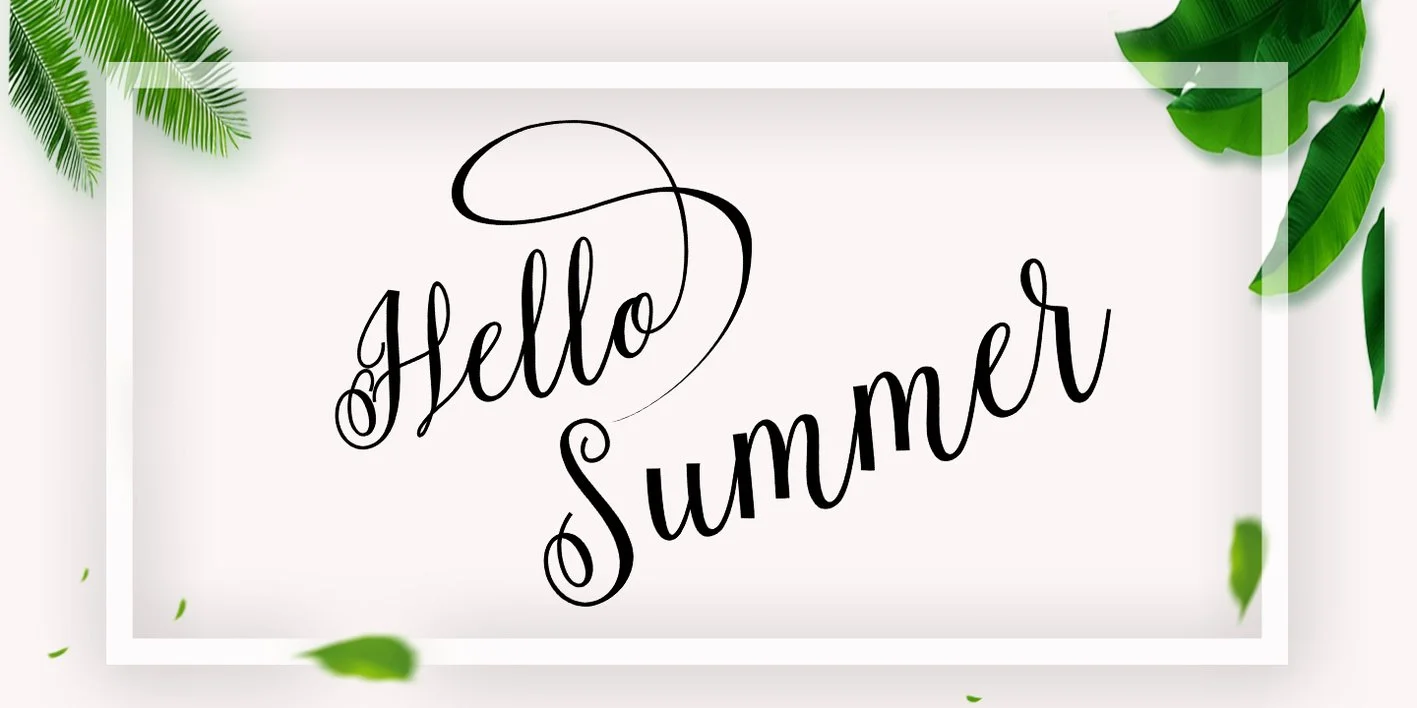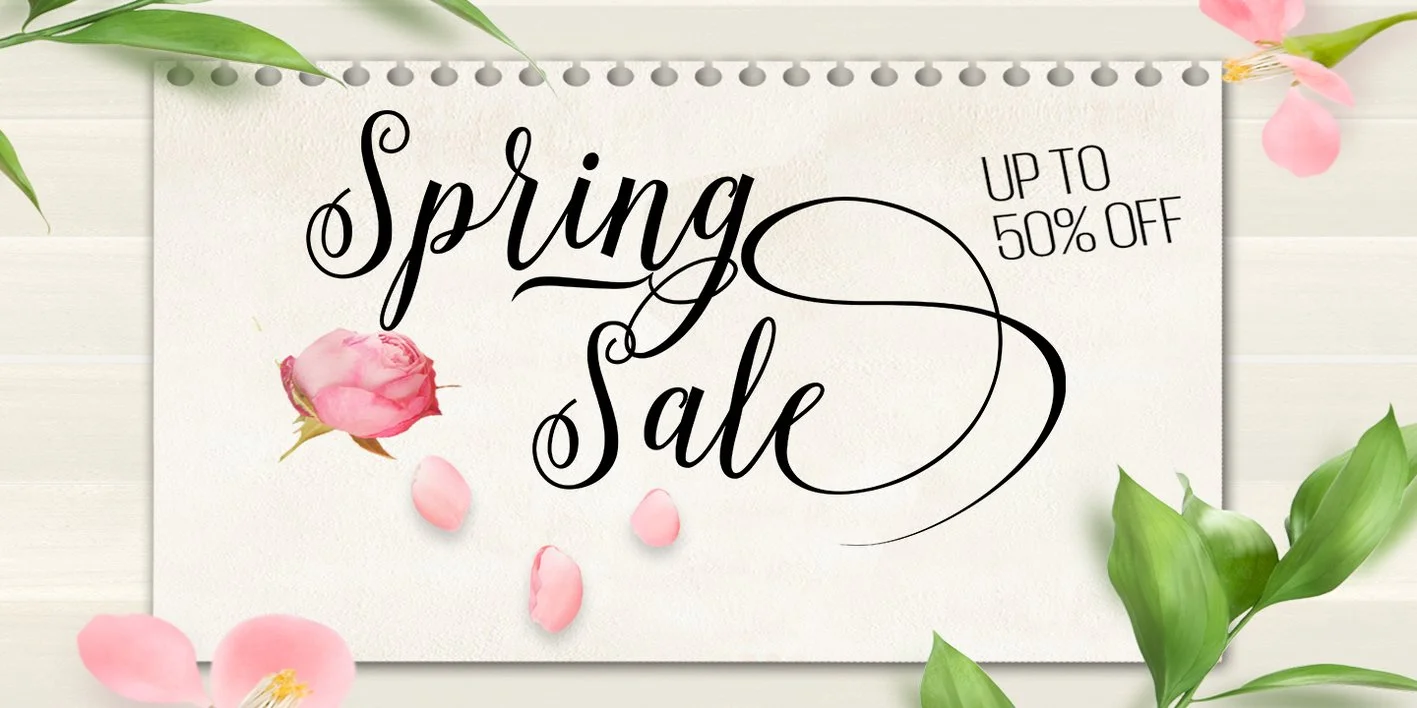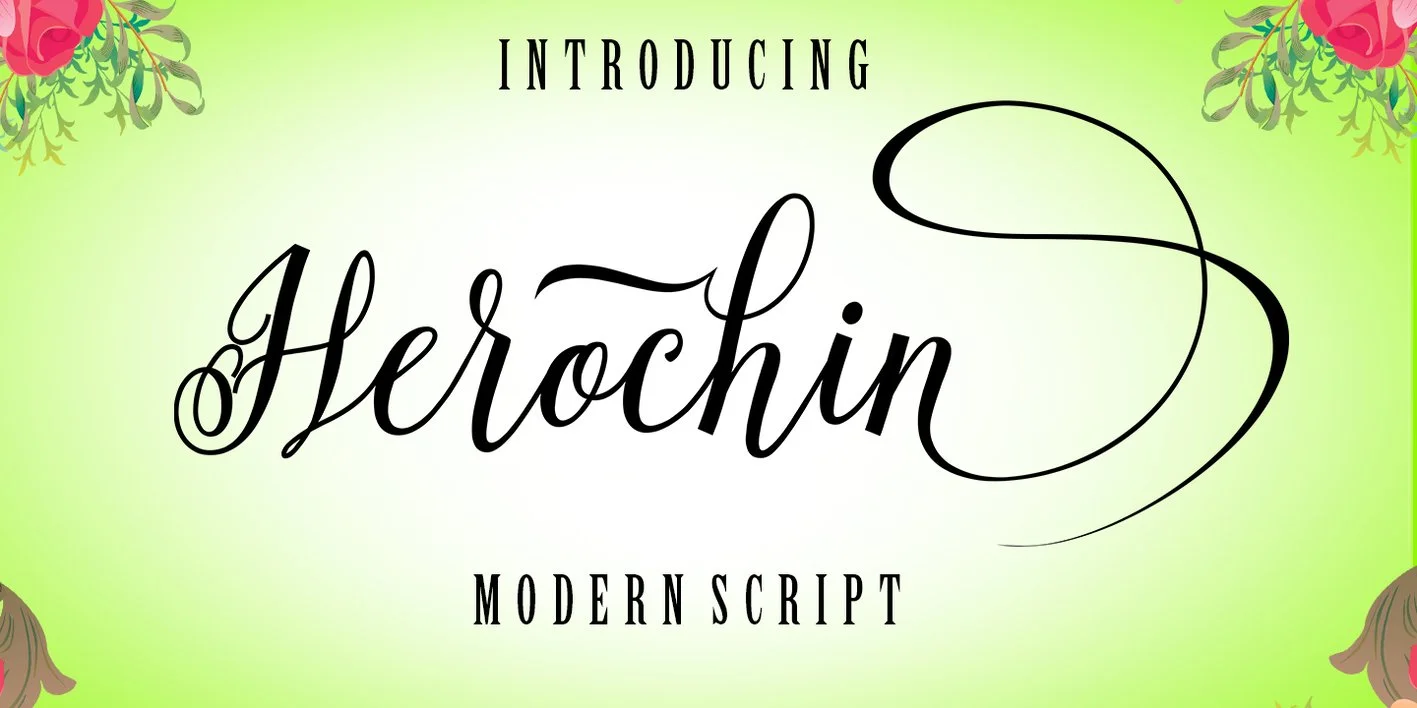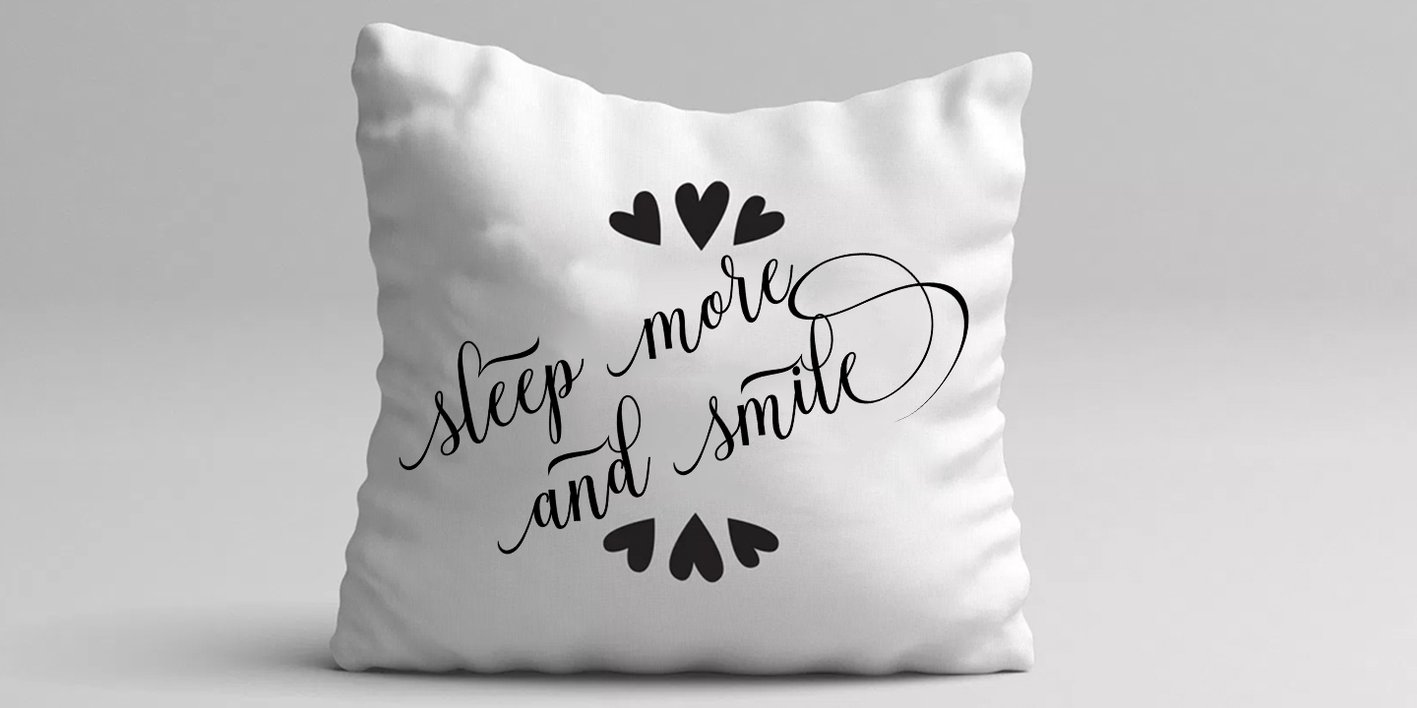
Herochin Font
Typography shapes perception at a subconscious level. Herochin leverages consistent type colour across continuous text to make every composition feel considered. The typeface brings an elegant, calligraphic sensibility to a broad range of creative disciplines, with strong typographic hierarchy support that holds up whether the work is print-first or screen-first.
In practice, Herochin proves particularly effective for boutique logos, luxury stationery, logo design, advertising campaigns, perfume labels. Designers reaching for it find that the type decisions feel resolved rather than laboured — a useful quality when client timelines are tight.
The range of applications extends to packaging design, product labels, web design, fashion editorials. That breadth is deliberate: the proportions and spacing were stress-tested across a wide range of mock briefs before the typeface was finalised.
Herochin sits comfortably alongside both classic and contemporary typefaces in multi-font hierarchies. It takes direction rather than competing for attention — a quality that experienced designers know is harder to find than it appears.
In-house creative teams at consumer brands find Herochin a reliable choice for projects that demand both personality and restraint. The design avoids the self-conscious quirkiness that dates quickly, settling instead for considered distinctiveness that holds up over time.